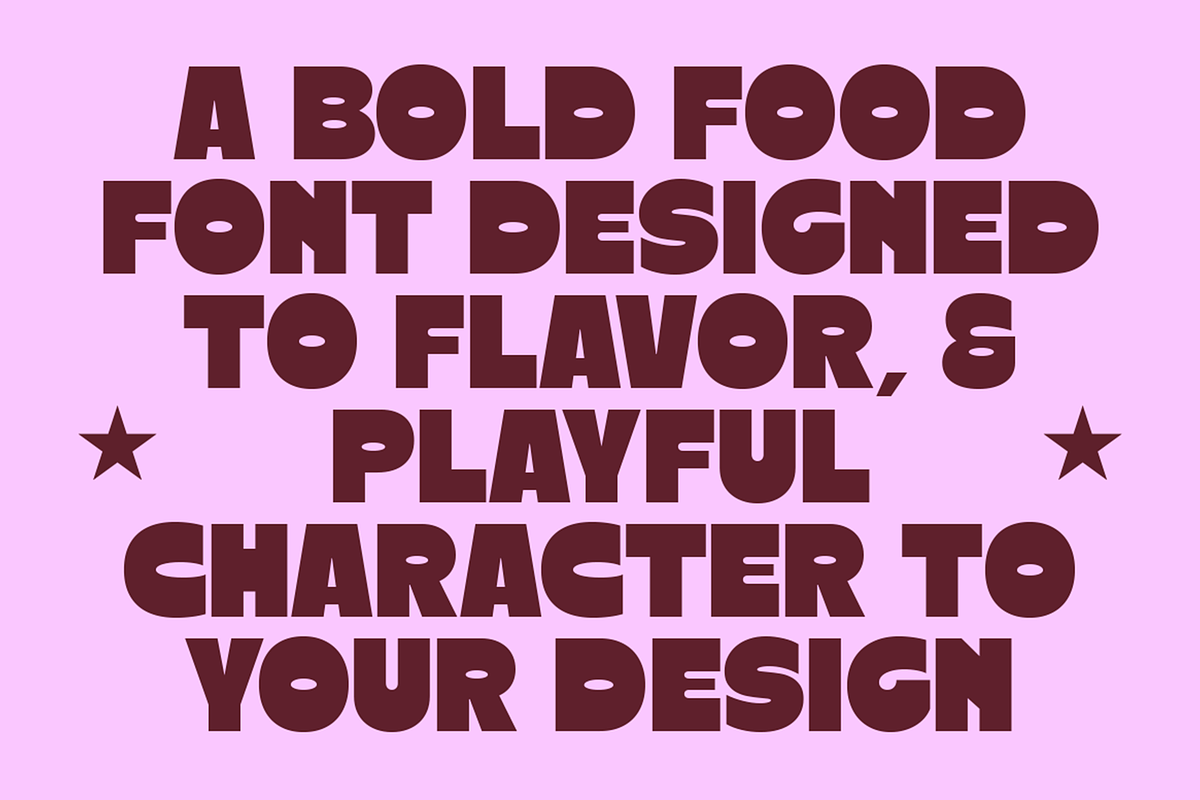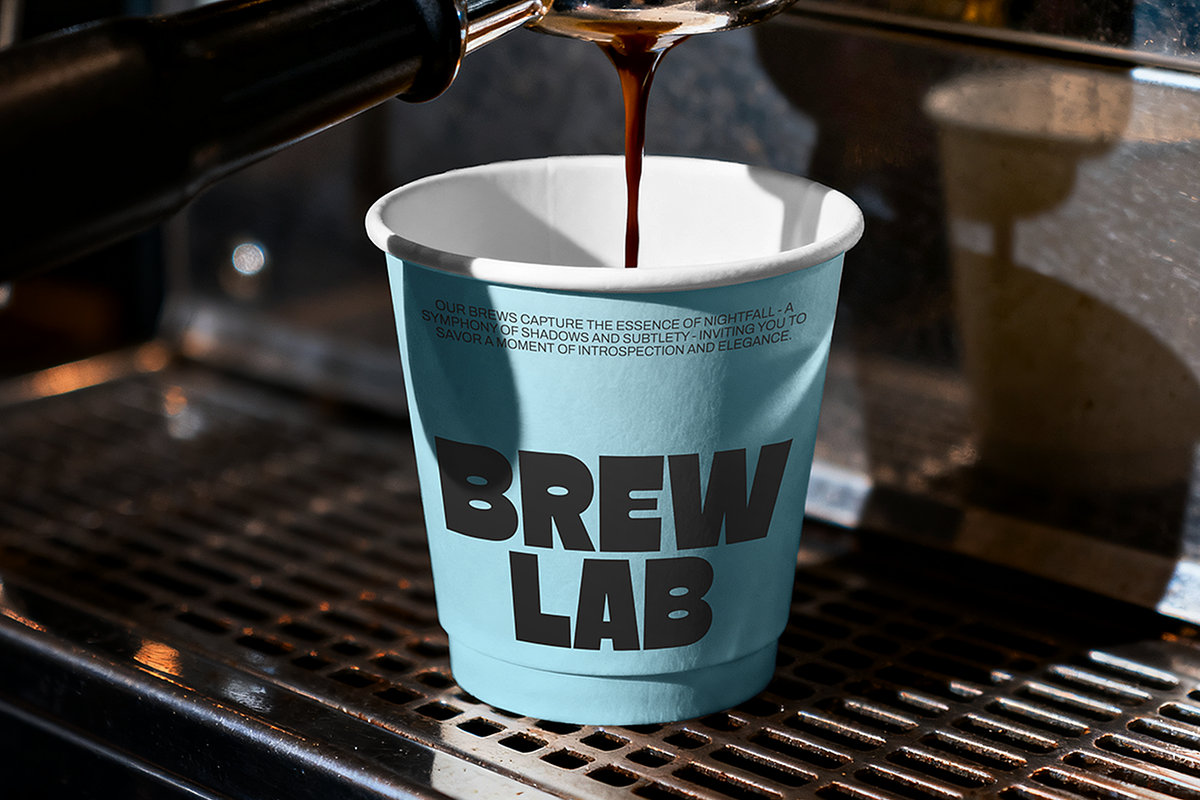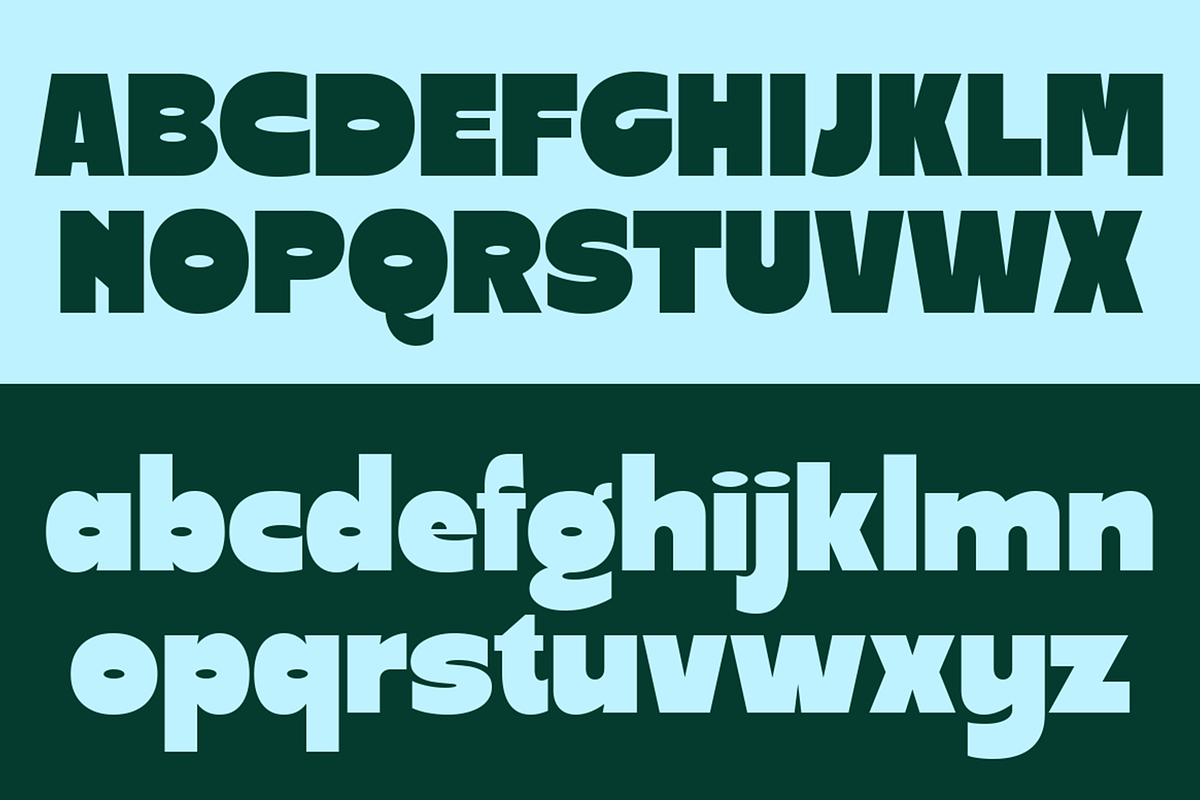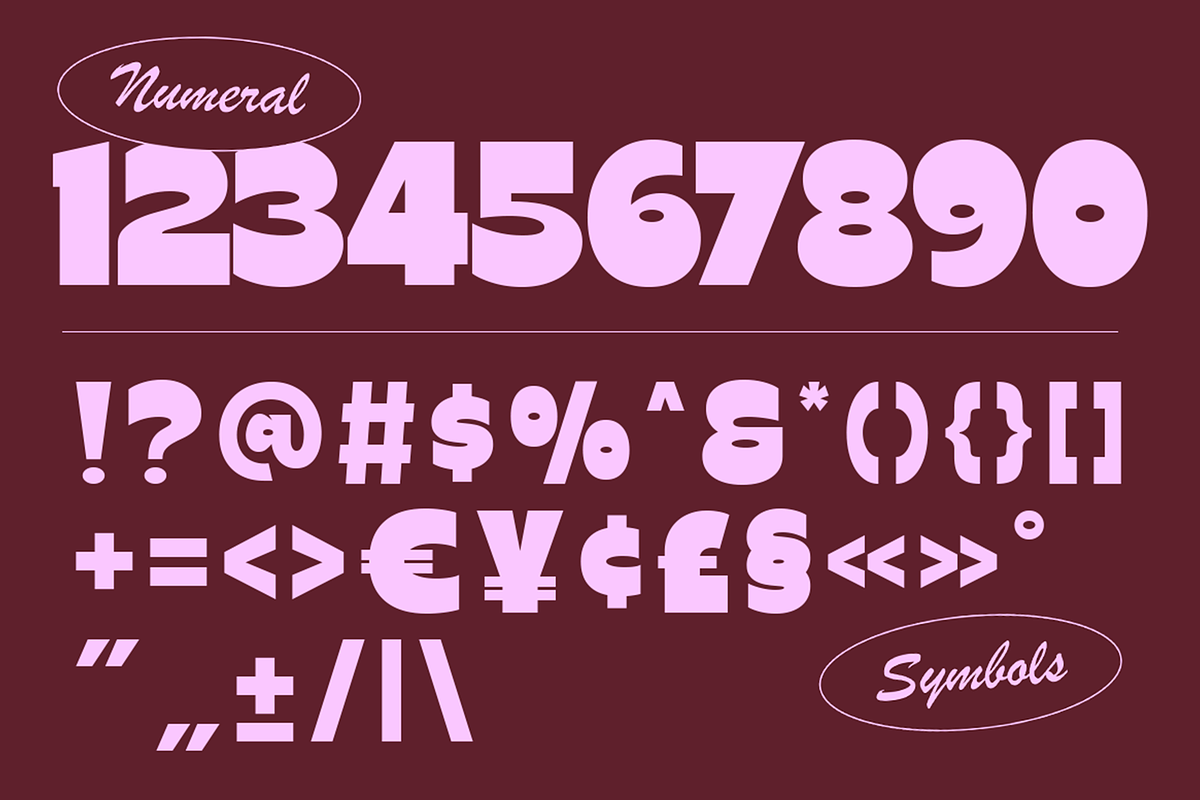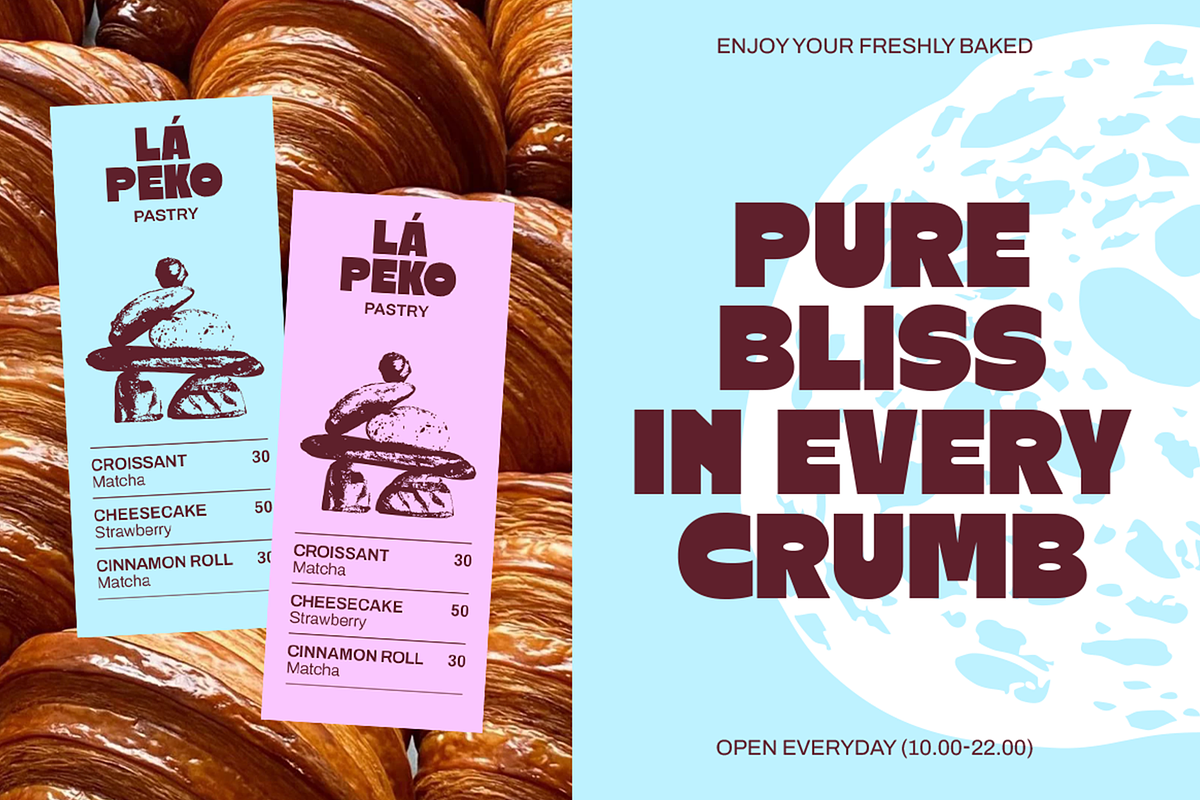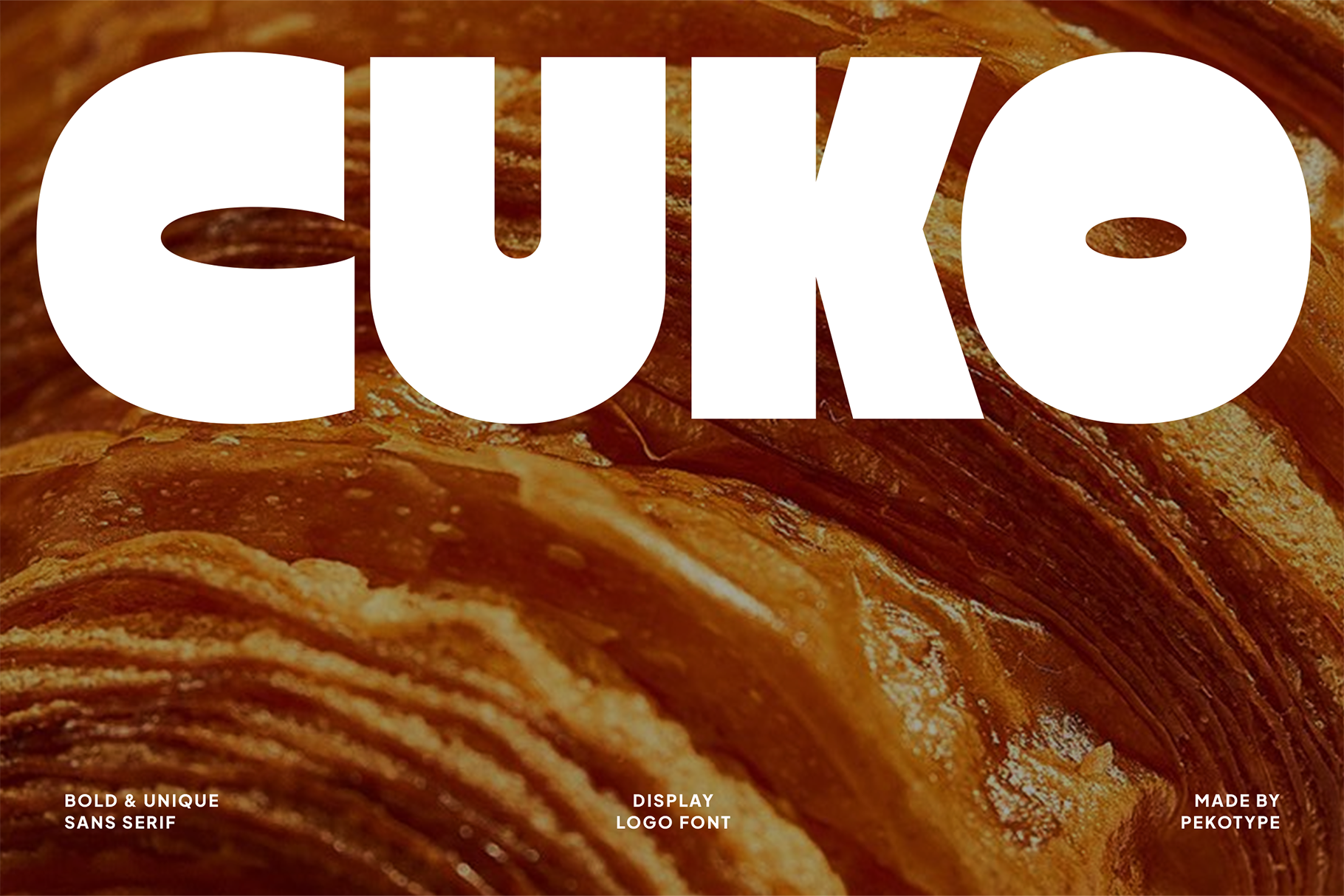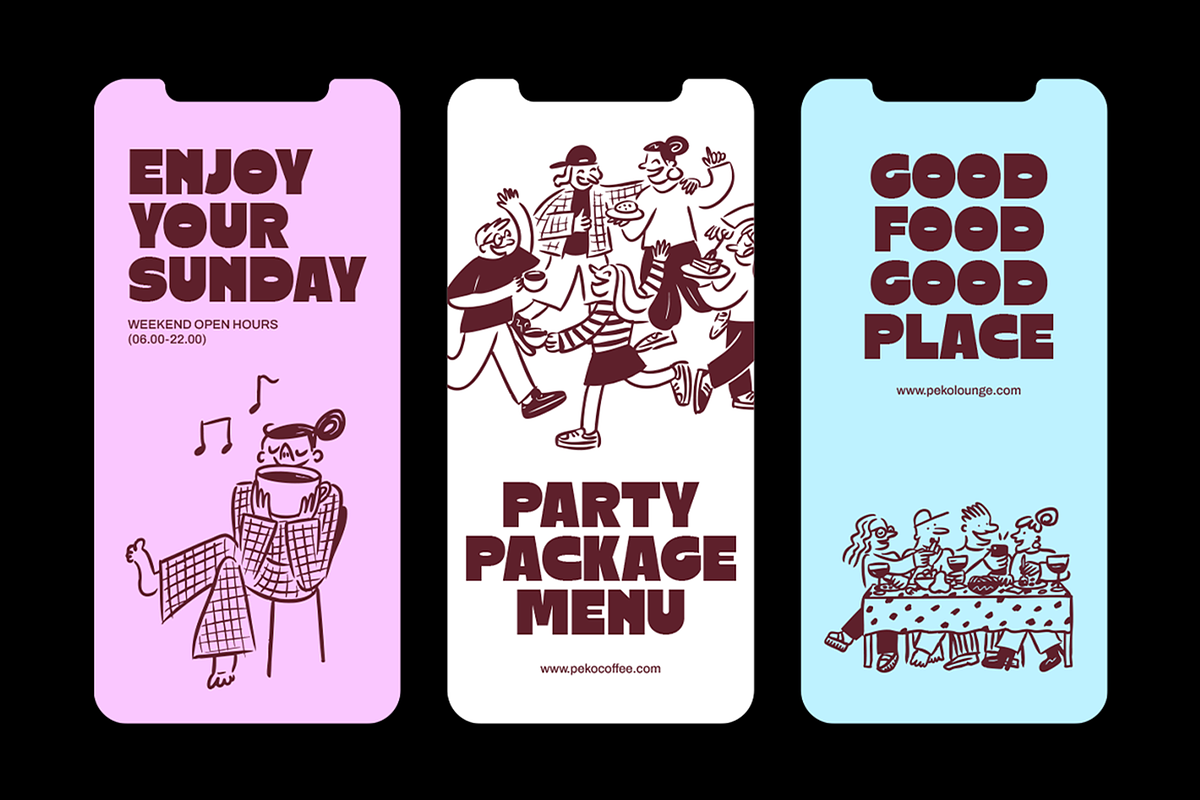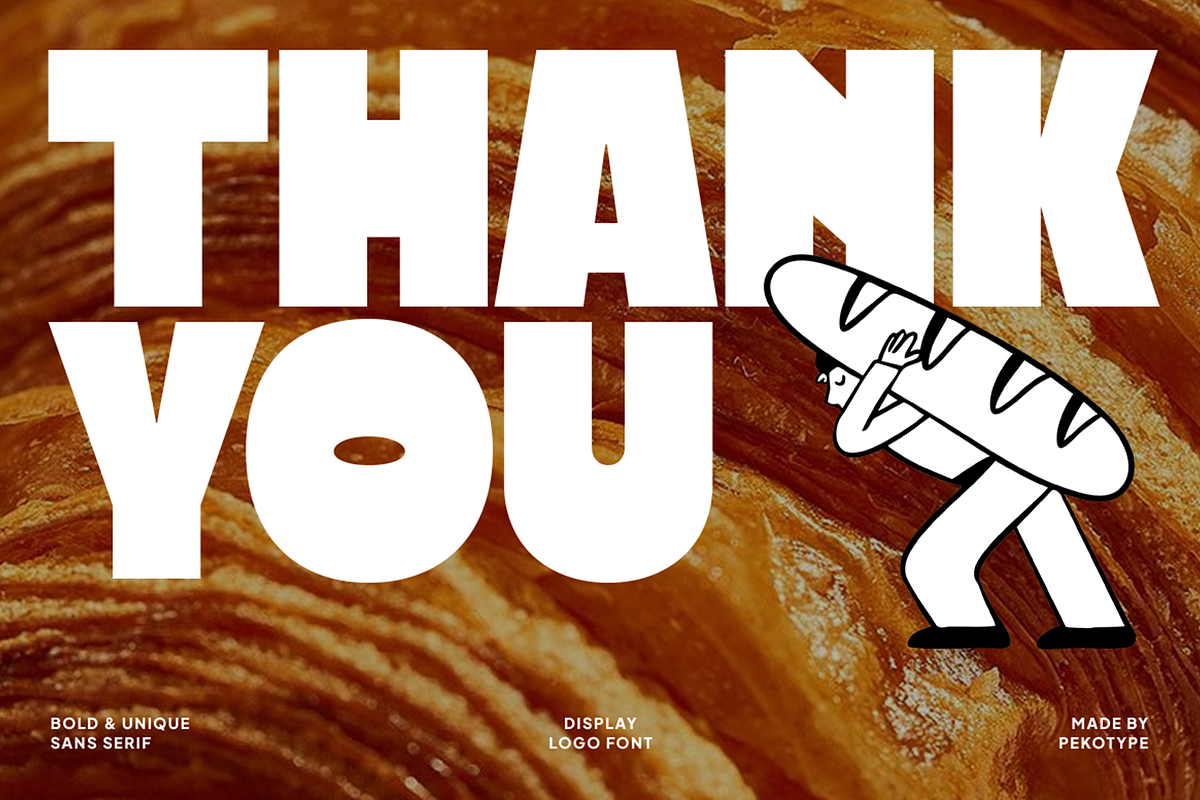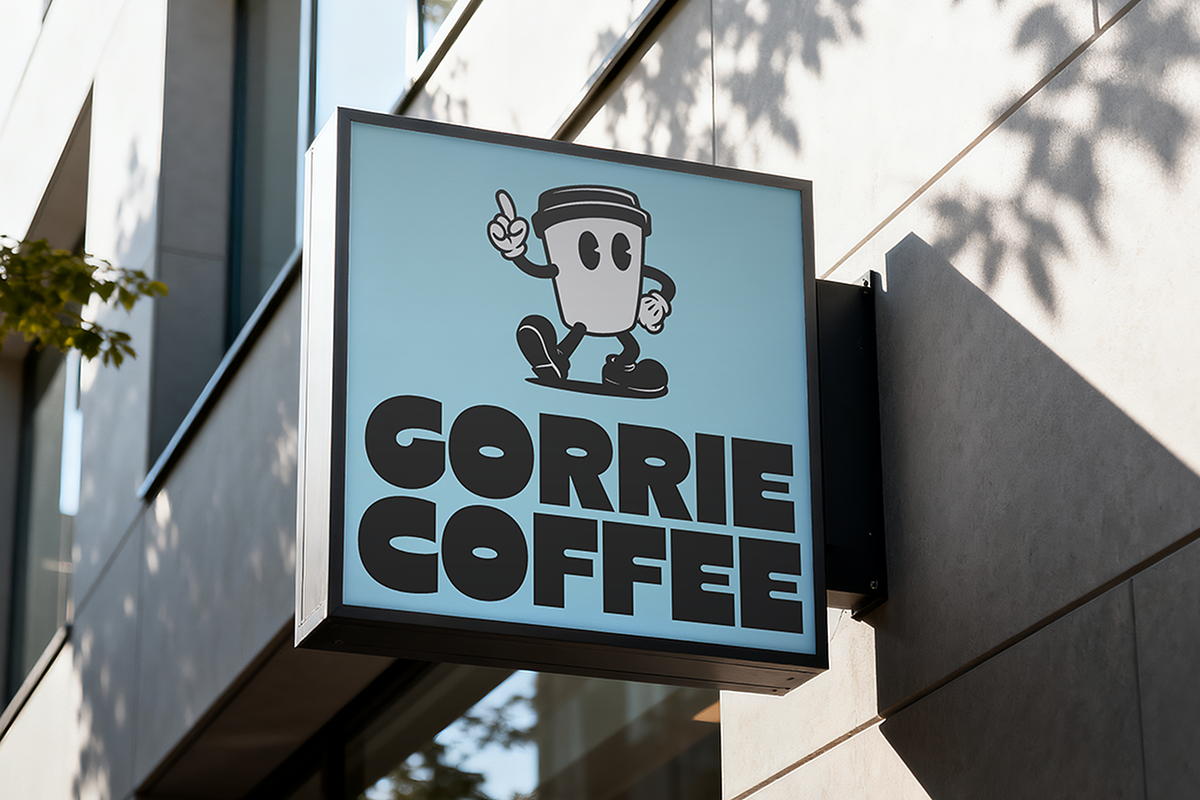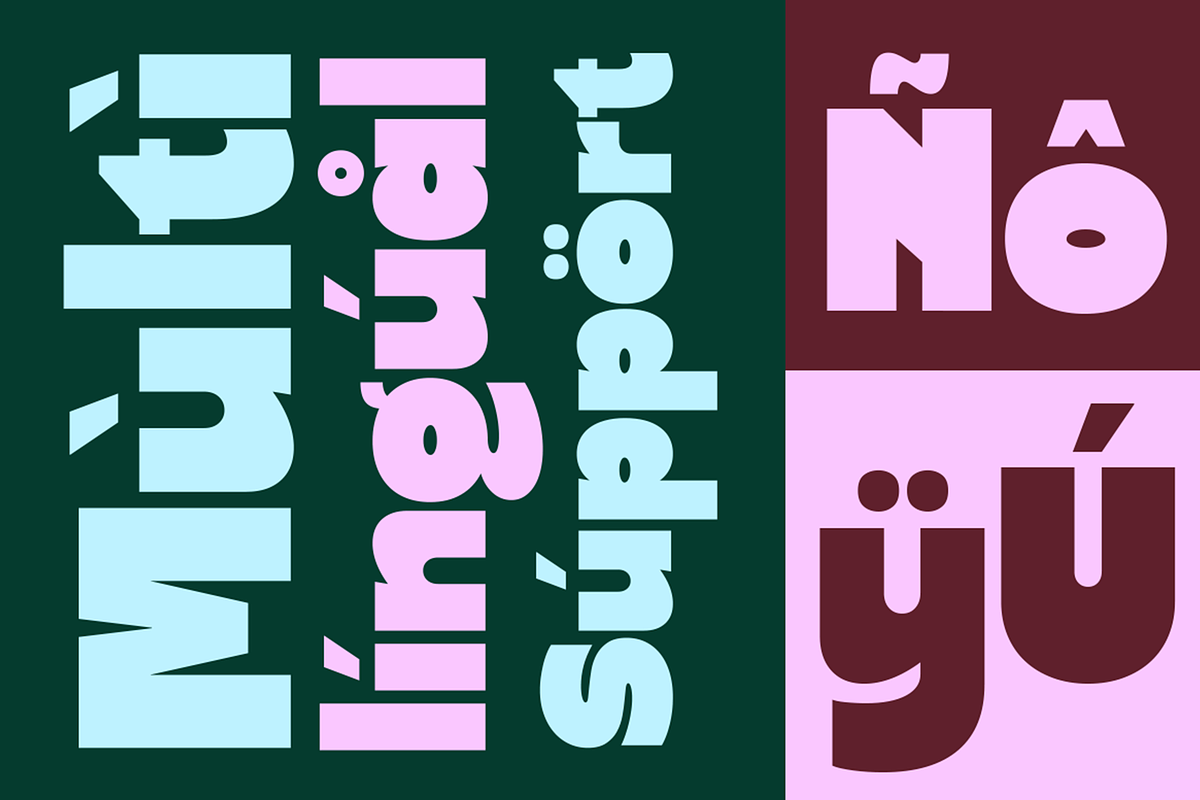
Cuko- Bold Thick Modern Display Font
CUKO is a bold, playful display font made to bring flavor and personality into your design. It features thick, rounded shapes with a soft and friendly look, making every word feel warm, fun, and easy to read. The style is strong but not too serious, perfect for creating eye-catching headlines that still feel approachable. With uppercase, lowercase, numbers, symbols, and multilingual support, CUKO is flexible for many creative needs.
This font works perfectly for food-related designs like bakery branding, café menus, packaging, drink cups, and restaurant visuals. It also fits great for posters, social media content, logos, and playful branding projects. From pastry labels to coffee shop signage and promo graphics, CUKO helps your design feel tasty, fun, and full of character.
- Number, Symbol, & Punctuation